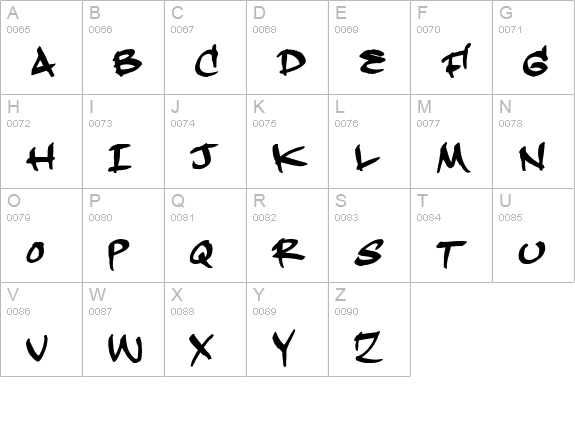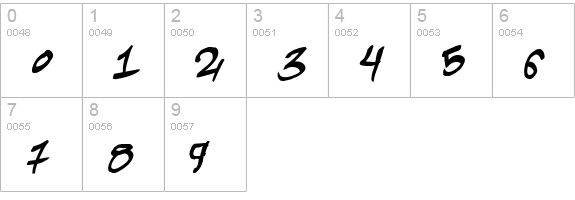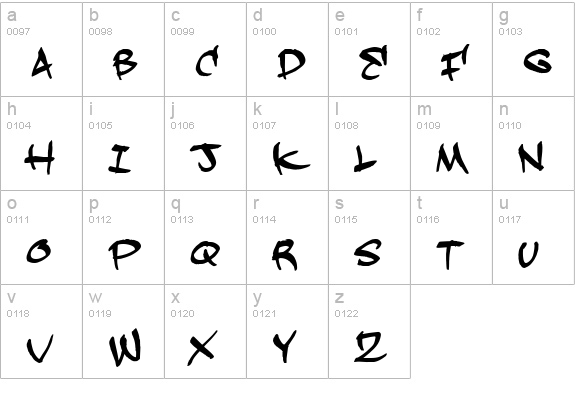
Hardkaze Font Details
Introducing Hardkaze, a bold and dynamic font that exudes power and strength. With its sharp edges and confident presence, Hardkaze commands attention and leaves a lasting impression. This one-of-a-kind typeface is perfect for projects that require a touch of boldness and a hint of edginess. Hardkaze is not only visually striking, but it also offers a sense of versatility that makes it suitable for a wide range of design applications. Whether you're designing a logo, poster, or website, Hardkaze will effortlessly elevate your work to new heights. What sets Hardkaze apart from other fonts is not only its remarkable aesthetics but also the fact that it is available for free. Yes, you heard it right! Hardkaze is freely available to download at FontsMarket.com. This means that you can enjoy the power and impact of this font without breaking the bank. So, why wait? Unleash your creativity and make a bold statement with Hardkaze. Download it now for free at FontsMarket.com and let your designs speak volumes.